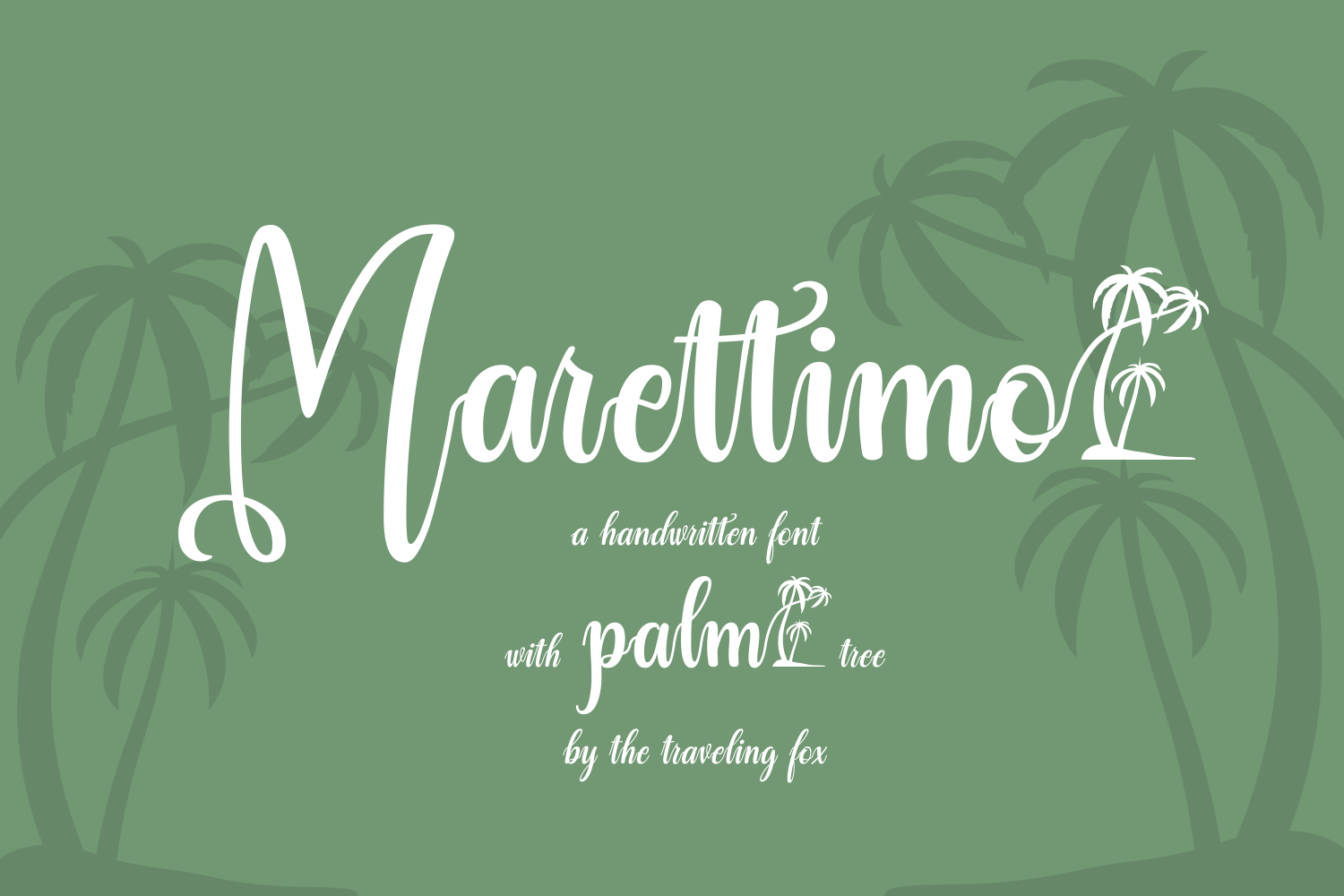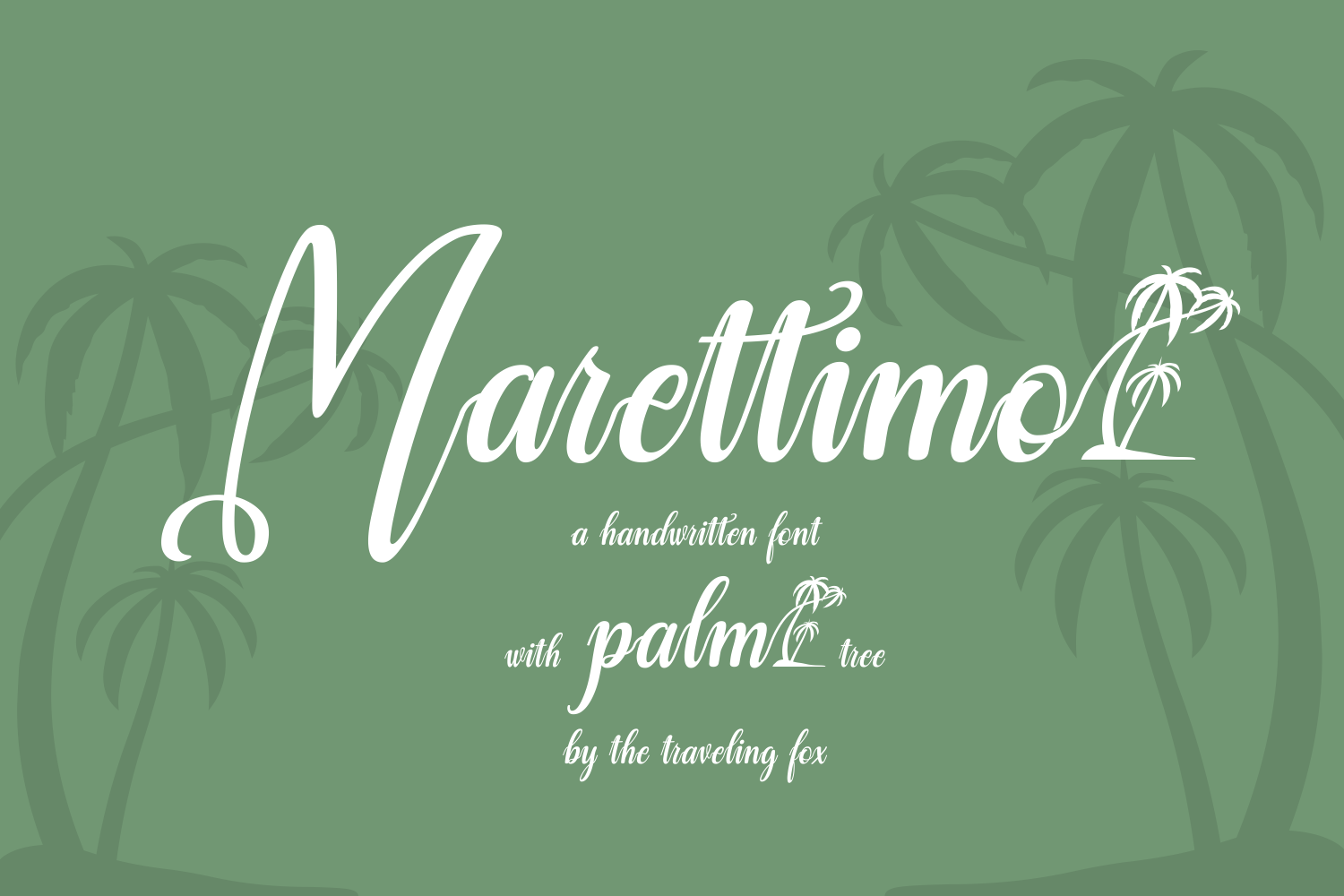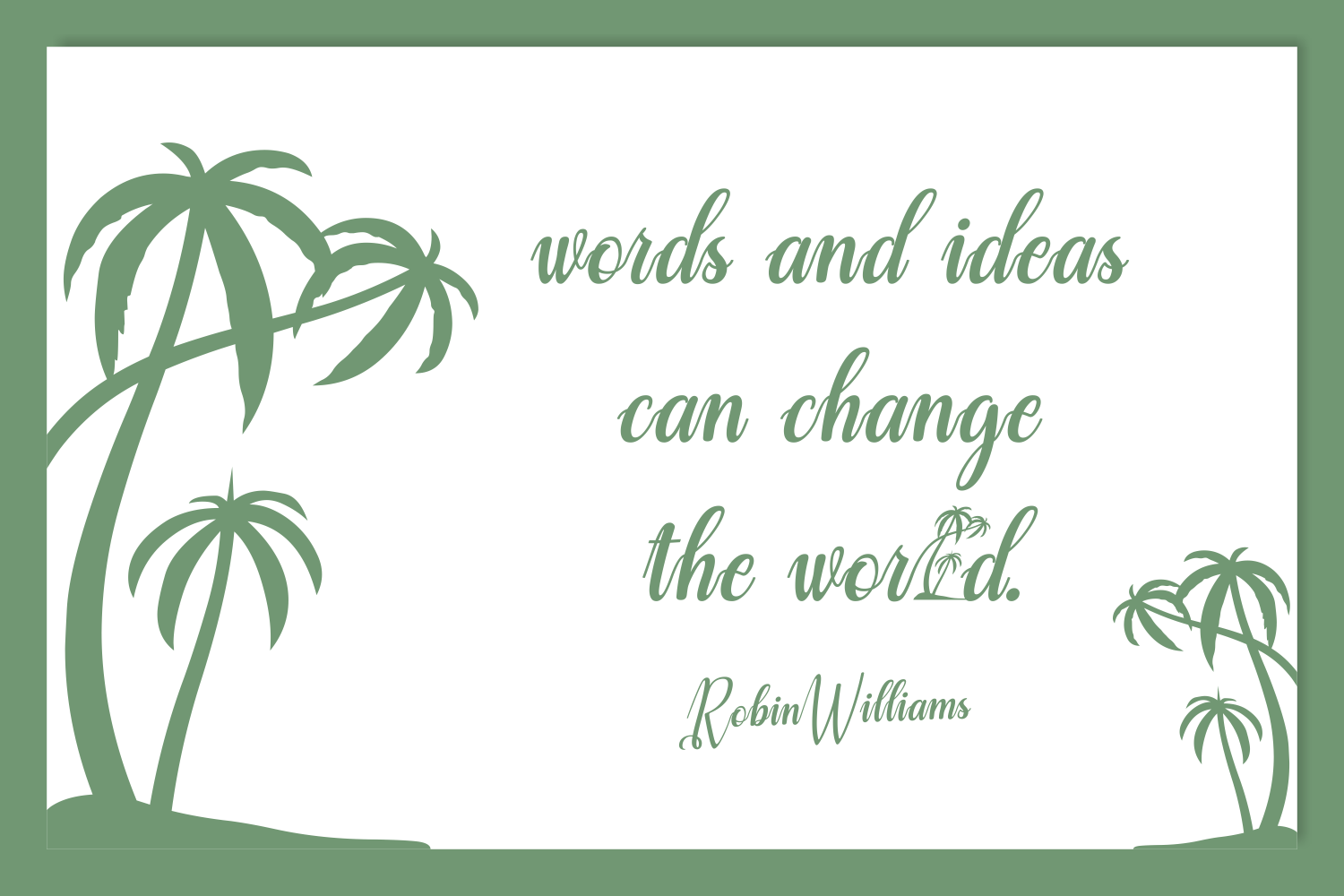
About Marettimo Font
Marettimo is a gorgeous typeface with a happy summer vibe.
It features a laid back handwriting style that is best described as ‘island-chic’. You can finish the tropical touch by simply adding the stunning palm tree glyph.
Marettimo comes in 2 weights: Regular & Italic.